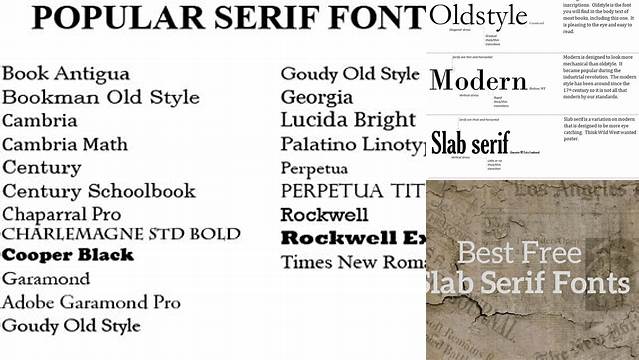
Serif Font Examples In Word: A Visual Guide
Hey guys! Ever wondered about those elegant, classic-looking fonts you see in books and professional documents? Those are likely serif fonts! And if you're using Microsoft Word, you've got a whole treasure trove of them at your fingertips. This guide is your one-stop-shop for understanding and using serif fonts effectively in Word. We're going to dive deep into examples of serif fonts in Microsoft Word, exploring their characteristics, best uses, and how to make the most of them in your projects. So, let's get started!
What are Serif Fonts?
Before we jump into specific examples, let's quickly define what a serif font actually is. Serif fonts are characterized by the small strokes or “feet” (the serifs!) that extend from the ends of the larger strokes in each letter. These little details give serif fonts a formal, traditional, and often more readable appearance, especially in large blocks of text. Think of them as the distinguished elder statesmen of the font world.
Understanding the Anatomy of Serif Fonts
To truly appreciate examples of serif fonts in Microsoft Word, it's crucial to understand their anatomy. The serifs themselves are the defining feature, but there's more to it than just those little feet. Consider the stroke contrast, which refers to the difference in thickness between the thin and thick parts of the letters. High contrast (like in Bodoni) creates a dramatic, elegant look, while low contrast (like in Century Schoolbook) is generally more readable for long passages. The x-height, the height of the lowercase letter 'x', also plays a role. A larger x-height can improve readability, especially at smaller sizes. By understanding these elements, you can better choose the best examples of serif fonts in Microsoft Word for your needs.
Why Use Serif Fonts?
So, why choose a serif font over a sans-serif (those fonts without the little feet)? Serif fonts are often perceived as more authoritative, formal, and traditional. They're ideal for professional documents, academic papers, books, and anything that needs a touch of elegance. The serifs themselves can also help guide the reader's eye along the lines of text, which can improve readability, especially in print. However, in some digital formats, extremely fine serifs might appear blurry, so consider your medium when choosing examples of serif fonts in Microsoft Word.
Classic Serif Font Examples in Microsoft Word
Now, let's get into the meat of the matter: the actual font examples! Microsoft Word comes pre-loaded with a fantastic selection of serif fonts, each with its own unique personality and best-use cases. We'll explore some of the classics and some lesser-known gems.
Times New Roman: The Undisputed King
Ah, Times New Roman. The font that needs no introduction. It's the default font in Word for a reason: it's incredibly versatile and readable. While some might consider it a bit overused, it's still a solid choice for professional documents, reports, and academic papers. Times New Roman boasts a balanced design and is highly legible, making it a reliable example of serif fonts in Microsoft Word. It works well in both print and digital formats, though its ubiquity can sometimes make it feel a little… bland.
To really make it shine, consider adjusting the spacing or using it in combination with a well-chosen sans-serif font for headings. Don't be afraid to experiment with different sizes and weights (bold, italic) to give it a bit more personality. While Times New Roman might be the safe choice, that doesn't mean it can't be a good choice, especially when used thoughtfully. The key is understanding its strengths and weaknesses and using it appropriately. When thinking about examples of serif fonts in Microsoft Word, Times New Roman always makes the list, and for good reason.
Garamond: Elegance and Readability Combined
Garamond is another classic serif font that exudes elegance and sophistication. It has a more refined and graceful appearance than Times New Roman, making it a great choice for books, brochures, and other documents where aesthetics are important. Its delicate serifs and slightly condensed letterforms give it a distinct personality. Garamond is known for its readability, even at smaller sizes, making it an excellent example of serif fonts in Microsoft Word for body text. Think of it as the stylish cousin of Times New Roman, offering a similar level of readability with a dash of extra flair.
Georgia: Designed for the Screen
Georgia is a serif font specifically designed for on-screen readability. It has a larger x-height and thicker strokes than many other serif fonts, making it clear and legible even at smaller sizes and on lower-resolution screens. This makes it an ideal example of serif fonts in Microsoft Word for online articles, blog posts, and other digital content. While it works well in print too, Georgia truly shines in the digital realm. It's a friendly and approachable font, perfect for situations where clarity and readability are paramount.
Baskerville: A Font with History
Baskerville is a transitional serif font, meaning it falls between the “old-style” serifs (like Garamond) and the “modern” serifs (like Bodoni). It’s known for its sharp serifs and elegant letterforms. Baskerville has a rich history, dating back to the 18th century, and its timeless design makes it a fantastic example of serif fonts in Microsoft Word for books, magazines, and other publications where a touch of classic elegance is desired. It conveys a sense of authority and sophistication, making it a strong choice for professional documents as well.
Palatino: Warmth and Distinction
Palatino is a humanist serif font, characterized by its calligraphic feel and warm, inviting appearance. It has a strong, distinct personality and is highly readable, even at small sizes. Palatino is a great example of serif fonts in Microsoft Word for invitations, announcements, and other documents where you want to convey a sense of warmth and sophistication. Its open letterforms and generous spacing contribute to its readability, making it a versatile choice for both body text and headlines.
Modern Serif Font Examples in Microsoft Word
While classic serifs have their place, there's also a world of modern serif fonts that offer a contemporary twist on the traditional style. These fonts often feature cleaner lines, bolder strokes, and a more minimalist aesthetic.
Didot: High Contrast Elegance
Didot is a modern serif font characterized by its high contrast between thick and thin strokes. This gives it a dramatic and elegant appearance, making it a popular choice for fashion magazines, high-end branding, and other applications where a touch of luxury is desired. While Didot is visually striking, its high contrast can sometimes make it less readable for long passages of text, especially at smaller sizes. It's a fantastic example of serif fonts in Microsoft Word for headlines and short blocks of text, but might not be the best choice for body copy.
Bodoni: Bold and Beautiful
Bodoni is another modern serif font with high contrast and a bold, dramatic look. It's similar to Didot but generally has thicker strokes, making it even more impactful. Bodoni is a great example of serif fonts in Microsoft Word for headlines, posters, and other display applications where you want to make a statement. Like Didot, it's not always the most readable font for long blocks of text, but its visual impact is undeniable.
Lesser-Known Serif Font Gems in Microsoft Word
Beyond the usual suspects, Microsoft Word has some hidden gems in its font library. These lesser-known serif fonts can add a unique touch to your documents and help you stand out from the crowd.
Book Antiqua: A Softer Alternative to Times New Roman
Book Antiqua is a serif font that resembles Palatino but has a slightly softer, more rounded appearance. It's a good alternative to Times New Roman if you want a font that's still professional and readable but with a bit more personality. This example of serif fonts in Microsoft Word provides a classic, yet subtly distinct feel, perfect for body text in books or reports.
Century Schoolbook: Excellent Readability
Century Schoolbook is a serif font specifically designed for readability, particularly in textbooks and other educational materials. It has a large x-height and clear, open letterforms, making it easy on the eyes. This example of serif fonts in Microsoft Word is known for its legibility even at smaller sizes, making it ideal for documents with extensive text.
How to Choose the Right Serif Font in Microsoft Word
With so many examples of serif fonts in Microsoft Word to choose from, how do you pick the right one for your project? Here are a few factors to consider:
Purpose of the Document
What is the purpose of your document? A formal report will likely require a different font than a creative brochure. Consider the tone and message you want to convey. If it's a formal document, fonts like Times New Roman or Baskerville can be great examples of serif fonts in Microsoft Word. If it's something that needs to feel more inviting and warm, try Palatino or Book Antiqua.
Target Audience
Who is your target audience? If you're writing for a general audience, readability is key. For a more niche audience, you might have more leeway to experiment with more stylized fonts. Think about your readers and what fonts they will find easiest to read and most appropriate for the content.
Readability
Readability is crucial, especially for long blocks of text. Choose fonts with clear, open letterforms and adequate spacing. Avoid fonts with overly thin strokes or overly decorative serifs, as these can be difficult to read. Some examples of serif fonts in Microsoft Word known for their readability are Georgia and Century Schoolbook.
Font Pairing
Consider how your serif font will pair with other fonts, especially sans-serif fonts for headings. A well-chosen font pairing can create a visually appealing and harmonious design. Generally, it's good to pair a serif font with a sans-serif font that has a similar weight or style. For example, you might pair Garamond with Helvetica or Arial.
Serif Fonts for Headings vs. Body Text
Generally, serif fonts are excellent choices for body text due to their enhanced readability, but they can also be used effectively for headings. However, it's important to choose a font that's appropriate for the context. For headings, you might opt for a bolder or more distinctive serif font to create visual interest. For body text, prioritize readability and choose a font that's easy on the eyes. Balancing the use of examples of serif fonts in Microsoft Word for headings and body text is key to effective document design.
Using Serif Fonts for Headings
When using serif fonts for headings, consider choosing a font with a strong personality. This can help create visual hierarchy and make your headings stand out. Modern serifs like Didot or Bodoni can be excellent choices for headings, as their high contrast and bold strokes make them eye-catching. However, be mindful of readability and ensure the font is legible even at a larger size. Balancing elegance with clarity is key when selecting examples of serif fonts in Microsoft Word for headings.
Using Serif Fonts for Body Text
For body text, readability is paramount. Choose a serif font that's clear, open, and easy on the eyes. Classic serifs like Garamond, Georgia, and Century Schoolbook are excellent choices for body text. Avoid fonts with overly thin strokes or overly decorative serifs, as these can fatigue the reader's eyes. The goal is to create a comfortable reading experience, making well-designed examples of serif fonts in Microsoft Word essential.
Formatting Serif Fonts in Microsoft Word
Once you've chosen your serif font, it's important to format it correctly to ensure optimal readability and visual appeal. Microsoft Word offers a variety of formatting options that can help you fine-tune the appearance of your text. This includes font size, line spacing, kerning, and tracking.
Adjusting Font Size
The appropriate font size will depend on the font you've chosen, the purpose of your document, and your target audience. Generally, a font size of 10-12 points is suitable for body text, while headings can be larger. Experiment with different sizes to see what looks best. When selecting examples of serif fonts in Microsoft Word, remember that readability can vary based on size, so testing is crucial.
Line Spacing (Leading)
Line spacing, also known as leading, refers to the vertical space between lines of text. Adequate line spacing is crucial for readability. A general rule of thumb is to use a line spacing of 1.2 to 1.5 times the font size. You can adjust line spacing in Microsoft Word by going to the “Paragraph” settings. Optimizing line spacing enhances the visual appeal and readability of examples of serif fonts in Microsoft Word.
Kerning and Tracking
Kerning refers to the spacing between individual letters, while tracking refers to the overall spacing between all letters in a block of text. Adjusting kerning and tracking can improve the visual appeal and readability of your text. Microsoft Word offers kerning options in the “Font” settings. Fine-tuning these settings can significantly improve how examples of serif fonts in Microsoft Word appear in your document.
Using Bold and Italic Styles
Using bold and italic styles can help emphasize important words or phrases and create visual interest. However, use these styles sparingly, as overuse can make your text look cluttered. Bold is great for highlighting key terms, while italics can be used for quotes or emphasis. Proper use of these styles complements the natural elegance of examples of serif fonts in Microsoft Word.
Pairing Serif Fonts with Sans-Serif Fonts
As mentioned earlier, pairing serif fonts with sans-serif fonts can create a visually appealing and balanced design. The key is to choose fonts that complement each other without clashing. A common approach is to use a serif font for body text and a sans-serif font for headings, or vice versa. Exploring different pairings among examples of serif fonts in Microsoft Word and their sans-serif counterparts can lead to striking visual results.
Best Practices for Font Pairing
When pairing fonts, look for fonts that have similar weights or styles. For example, a classic serif font like Garamond pairs well with a classic sans-serif font like Helvetica. A modern serif font like Bodoni might pair well with a geometric sans-serif font like Futura. The goal is to create a harmonious and cohesive design. Successful font pairing showcases the versatility of examples of serif fonts in Microsoft Word.
Examples of Successful Font Pairings
Some classic font pairings include: Times New Roman and Arial, Garamond and Helvetica, Georgia and Verdana, and Baskerville and Gill Sans. Experiment with different pairings to see what works best for your project. Don't be afraid to break the rules, but always prioritize readability and visual appeal. Understanding these pairings allows you to maximize the impact of examples of serif fonts in Microsoft Word.
Common Mistakes to Avoid When Using Serif Fonts
While serif fonts are versatile and elegant, there are some common mistakes to avoid. These include using too many different fonts, overusing bold and italic styles, and choosing fonts that are difficult to read.
Overusing Fonts
Using too many different fonts in a single document can create a cluttered and unprofessional look. Stick to a maximum of two or three fonts and use them consistently throughout your document. Simplicity and consistency are key when working with examples of serif fonts in Microsoft Word.
Overusing Bold and Italic
As mentioned earlier, overusing bold and italic styles can make your text look cluttered and distracting. Use these styles sparingly and only to emphasize important words or phrases. Subtlety in formatting enhances the overall effectiveness of examples of serif fonts in Microsoft Word.
Choosing Illegible Fonts
Some serif fonts, particularly those with overly thin strokes or decorative serifs, can be difficult to read, especially at smaller sizes. Always prioritize readability and choose fonts that are clear and legible. Selecting appropriate examples of serif fonts in Microsoft Word ensures your message is communicated clearly.
Where to Find More Serif Fonts for Microsoft Word
While Microsoft Word comes with a solid selection of serif fonts, you can always expand your font library by downloading fonts from the internet. There are many websites that offer free and paid fonts. Sites like Google Fonts, Adobe Fonts, and MyFonts are excellent resources. Exploring these platforms expands your options beyond the basic examples of serif fonts in Microsoft Word.
Installing Fonts in Microsoft Word
Installing fonts in Microsoft Word is usually a straightforward process. Simply download the font file (usually in .ttf or .otf format) and double-click it. This will open a font preview window. Click the “Install” button, and the font will be installed on your system and available in Microsoft Word. This allows you to incorporate even more diverse examples of serif fonts in Microsoft Word.
The Future of Serif Fonts in Digital Design
Serif fonts have a long and rich history, and they continue to be relevant in digital design. While sans-serif fonts have gained popularity in web design, serif fonts still hold a place of importance, particularly for content-heavy websites and publications. The timeless appeal of examples of serif fonts in Microsoft Word extends to the broader digital landscape.
Serif Fonts and Accessibility
When choosing fonts for digital content, it's important to consider accessibility. Some serif fonts are more accessible than others, particularly those with a large x-height and clear letterforms. Georgia, for example, is a highly accessible serif font that works well on screen. Choosing accessible examples of serif fonts in Microsoft Word ensures your content is inclusive.
Serif Fonts in Branding
Serif fonts can play a key role in branding, conveying a sense of tradition, authority, and elegance. Many established brands use serif fonts in their logos and marketing materials. Considering examples of serif fonts in Microsoft Word in a branding context highlights their enduring professional appeal.
Conclusion: Mastering Serif Fonts in Microsoft Word
So there you have it, a comprehensive guide to examples of serif fonts in Microsoft Word. From classic choices like Times New Roman and Garamond to modern options like Didot and Bodoni, there's a serif font for every project. By understanding the characteristics of serif fonts and how to use them effectively, you can create documents that are both visually appealing and highly readable. Experiment, explore, and have fun with these timeless typefaces!
H2: Understanding Serif Font Classifications
Serif fonts aren't a monolithic group; they're actually categorized into different classifications based on their historical origins and visual characteristics. Knowing these classifications helps you better appreciate the nuances between various examples of serif fonts in Microsoft Word and choose the most appropriate one for your needs. We'll explore the main classifications: Old Style, Transitional, Modern, and Slab Serif, each bringing a unique flavor to the font family.
H3: Old Style Serif Fonts (e.g., Garamond)
Old Style serif fonts are the earliest form of serif typefaces, dating back to the 15th century. They are characterized by their low contrast between thick and thin strokes, bracketed serifs (where the serifs curve smoothly into the stroke), and a diagonal stress (the thickest part of the curved strokes is at an angle). Garamond, as we mentioned before, is a quintessential example of an Old Style serif, renowned for its elegance and readability. These examples of serif fonts in Microsoft Word offer a classic and timeless feel, making them perfect for books and long-form content where readability is paramount. The subtle, handcrafted quality of Old Style fonts imparts a sense of sophistication and tradition, making them a popular choice for projects seeking a touch of historical charm. When using Old Style serifs, consider the spacing and leading carefully to enhance their natural readability and elegance, allowing their subtle features to shine.
H3: Transitional Serif Fonts (e.g., Baskerville)
Transitional serif fonts emerged in the 18th century, bridging the gap between Old Style and Modern serifs. They exhibit higher contrast than Old Style fonts but are less dramatic than Modern serifs. Their serifs are sharper and more refined, and the stress is more vertical. Baskerville is a prime example, boasting sharp serifs and elegant letterforms. These examples of serif fonts in Microsoft Word are known for their refined appearance and improved readability compared to earlier styles. Transitional fonts offer a balance between tradition and modernity, making them suitable for a wide range of applications, from books and magazines to corporate communications. They provide a clear and sophisticated look that is both inviting and professional. Their sharper details and cleaner lines make them particularly effective in print, where their elegance can be fully appreciated. When choosing transitional serifs, consider how they contribute to the overall tone of your document, as they can convey a sense of sophistication and authority.
H3: Modern Serif Fonts (e.g., Didot, Bodoni)
Modern serif fonts, also known as Didone, appeared in the late 18th and early 19th centuries. They are characterized by their extreme contrast between thick and thin strokes, thin, unbracketed serifs (serifs that connect abruptly to the main stroke), and a vertical stress. Didot and Bodoni are iconic examples, known for their striking elegance and dramatic flair. These examples of serif fonts in Microsoft Word are often used in high-fashion magazines, luxury branding, and other contexts where a touch of glamour is desired. However, their high contrast can sometimes make them less readable for long blocks of text, especially at smaller sizes. Modern serifs are best used for headlines, logos, and other applications where visual impact is more important than extensive readability. Their sharp, clean lines and dramatic contrast make a bold statement, but careful consideration of their context and usage is essential to maximize their effectiveness without sacrificing legibility.
H3: Slab Serif Fonts (e.g., Rockwell)
Slab serif fonts, also known as Egyptian serifs, are characterized by their thick, block-like serifs. They have a bold, sturdy appearance and often exhibit low contrast between thick and thin strokes. While not as common in general text, they are excellent for headlines, posters, and branding where a strong, impactful visual presence is needed. Rockwell is a notable example of serif fonts in Microsoft Word, demonstrating the distinct character of slab serifs. These fonts originated in the 19th century and were widely used in advertising and signage. They evoke a sense of robustness and reliability, making them suitable for projects aiming to convey strength and stability. Slab serifs can add a vintage or industrial feel to designs, and their distinctive serifs make them highly memorable. When using slab serifs, consider their weight and boldness to ensure they don't overpower the other elements of your design, and balance their strong presence with appropriate spacing and layout.
H2: Exploring the Readability of Serif Fonts
Readability is paramount in typography, and serif fonts have long been lauded for their ability to enhance the reading experience. The serifs themselves play a crucial role in guiding the eye along the baseline, reducing eye fatigue and improving comprehension, especially in long passages of text. However, not all serif fonts are created equal when it comes to readability. Factors such as x-height, stroke contrast, and letter spacing all contribute to how easily a font can be read. In this section, we'll delve deeper into the elements that influence readability and explore which examples of serif fonts in Microsoft Word excel in this area.
H3: The Role of Serifs in Reading Flow
The serifs, those small strokes at the ends of the letterforms, are more than just decorative elements. They act as visual cues that help the eye track smoothly across a line of text. This visual connection can improve reading speed and comprehension, especially in printed materials. Think of the serifs as tiny anchors that provide a sense of stability and direction. This guiding function is one of the primary reasons why serif fonts are often preferred for books, newspapers, and other long-form content. When considering examples of serif fonts in Microsoft Word for extended reading, it's essential to evaluate how effectively the serifs facilitate eye movement and maintain reader engagement. The subtle yet significant impact of serifs on reading flow underscores their importance in typography and document design.
H3: Impact of X-Height on Legibility
The x-height, the distance between the baseline and the mean line of lowercase letters, significantly impacts legibility. Fonts with a larger x-height tend to be more readable, especially at smaller sizes, as the lowercase letters appear more prominent and distinct. This is particularly important in digital environments where screen resolutions can affect how fonts are rendered. Examples of serif fonts in Microsoft Word like Georgia are designed with a larger x-height specifically for on-screen readability. A generous x-height contributes to the overall clarity and ease of reading, making it a critical consideration for body text and content-heavy documents. When selecting fonts, evaluating the x-height in relation to the cap height and ascenders/descenders can help ensure optimal legibility and a comfortable reading experience.
H3: Contrast and its Influence on Eye Strain
The contrast between the thick and thin strokes of a serif font can either enhance or detract from its readability. High-contrast fonts, like Didot and Bodoni, can be visually striking but may cause eye strain when used for large blocks of text. Low-contrast fonts, on the other hand, offer a more consistent visual texture that is easier on the eyes. When choosing examples of serif fonts in Microsoft Word for body text, it's often best to opt for fonts with moderate to low contrast. This helps ensure that the text remains comfortable to read even over extended periods. The balance between visual appeal and readability is key, and considering contrast is a vital step in selecting a font that serves both purposes effectively.
H3: Letter Spacing and its Effect on Reading Speed
Letter spacing, also known as tracking, plays a crucial role in reading speed and comprehension. Too little letter spacing can make the text appear cramped and difficult to decipher, while too much spacing can disrupt the flow of reading. The optimal letter spacing depends on the font's design, size, and the context in which it is used. Examples of serif fonts in Microsoft Word can be fine-tuned using the kerning and tracking tools in Microsoft Word to achieve the best balance. Thoughtful adjustment of letter spacing can significantly improve readability and overall visual appeal, ensuring that the text is both engaging and easy to follow. Paying attention to these details helps create a comfortable and efficient reading experience.
H2: Serif Fonts for Different Types of Documents
Different documents have different purposes and therefore require different typographic considerations. A formal academic paper will call for a different serif font than a casual invitation, and a marketing brochure will demand a different approach than a lengthy novel. Understanding how to select the right serif font for various types of documents is crucial for effective communication and visual impact. We'll explore several common document types and recommend suitable examples of serif fonts in Microsoft Word for each, focusing on their specific needs and intended audiences.
H3: Serif Fonts for Academic Papers and Reports
Academic papers and reports require a font that conveys authority, professionalism, and, above all, readability. The goal is to present information clearly and concisely, without distracting the reader with overly stylized fonts. Classic serif fonts like Times New Roman, Garamond, and Baskerville are excellent choices for these documents. These examples of serif fonts in Microsoft Word have a proven track record of readability in print and digital formats, making them ideal for lengthy texts. Times New Roman, while sometimes criticized for being overused, remains a solid choice for its neutrality and legibility. Garamond offers a slightly more elegant alternative, while Baskerville adds a touch of sophistication without sacrificing clarity. Consistency in font usage throughout the document is crucial, and these fonts provide a reliable foundation for academic writing.
H3: Serif Fonts for Business Correspondence and Resumes
Business correspondence and resumes demand a font that strikes a balance between professionalism and approachability. While readability is paramount, the font should also convey competence and attention to detail. Georgia and Book Antiqua are excellent options for these types of documents. Georgia, with its large x-height and clear letterforms, is particularly well-suited for on-screen reading, making it ideal for email correspondence and digital resumes. Book Antiqua provides a slightly softer alternative to Times New Roman, offering a touch of warmth without sacrificing professionalism. These examples of serif fonts in Microsoft Word ensure that your message is conveyed clearly and effectively, leaving a positive impression on the reader. The key is to choose a font that is both legible and reflects your personal brand.
H3: Serif Fonts for Books and Long-Form Content
For books and other long-form content, readability is the top priority. Readers will be spending hours engaging with the text, so it's crucial to choose a font that minimizes eye strain and facilitates a comfortable reading experience. Garamond, Palatino, and Century Schoolbook are all excellent choices for books. Garamond's elegant and readable letterforms have made it a favorite for book designers for centuries. Palatino offers a slightly warmer and more humanist feel, while Century Schoolbook is specifically designed for readability, particularly at smaller sizes. These examples of serif fonts in Microsoft Word are time-tested for their suitability in lengthy texts, ensuring that readers can immerse themselves in the content without distraction. When selecting a font for a book, consider the overall tone and genre, but always prioritize legibility and reading comfort.
H3: Serif Fonts for Invitations and Special Occasions
Invitations and other special occasion documents offer an opportunity to use more decorative and expressive serif fonts. While readability remains important, the focus shifts towards creating a visually appealing and memorable design. Baskerville, Palatino, and even modern serifs like Didot can be effective choices, depending on the desired tone. Baskerville can lend a touch of classic elegance, while Palatino offers a more humanist and inviting feel. Didot, with its high contrast and striking letterforms, can add a touch of glamour and sophistication. These examples of serif fonts in Microsoft Word allow for creative expression while maintaining a level of formality appropriate for special events. The key is to balance aesthetics with legibility, ensuring that the invitation is both beautiful and easy to read.
H2: Customizing Serif Fonts in Microsoft Word
Microsoft Word provides a range of tools for customizing fonts, allowing you to fine-tune their appearance and tailor them to your specific needs. Beyond simply selecting a font from the dropdown menu, you can adjust the size, weight, spacing, and other attributes to achieve the desired visual effect. These customization options are particularly useful for optimizing readability and creating a consistent typographic style throughout your document. By mastering these tools, you can make the most of examples of serif fonts in Microsoft Word and create professional-looking documents.
H3: Adjusting Font Size and Weight
Font size and weight are fundamental aspects of typography that can significantly impact readability and visual hierarchy. A larger font size is typically used for headings and titles, while a smaller size is used for body text. Font weight refers to the thickness of the strokes, with options ranging from light to bold. Using bold font weight can be effective for emphasizing key words or phrases, but it should be used sparingly to avoid overwhelming the reader. Adjusting the font size and weight is a basic yet powerful way to customize examples of serif fonts in Microsoft Word. The appropriate size and weight will depend on the font itself, the purpose of the document, and the intended audience. Experimentation is key to finding the optimal settings for your specific needs.
H3: Using Italics and Underlining Effectively
Italics and underlining are stylistic tools that can be used to add emphasis or distinguish certain words or phrases. Italics are commonly used for quotations, book titles, and foreign words, while underlining is often used to highlight important text. However, both of these tools should be used sparingly to avoid cluttering the page. Overuse of italics or underlining can actually detract from readability and make the document appear unprofessional. Subtlety is key when using these stylistic elements. As you explore examples of serif fonts in Microsoft Word, consider how italics and underlining will complement the font's natural characteristics. A well-placed italic or underline can enhance the visual impact of a serif font, but moderation is essential.
H3: Changing Letter and Line Spacing
Letter spacing (tracking) and line spacing (leading) are crucial for readability, particularly in longer documents. Adjusting these settings can significantly improve the overall visual appeal and reading experience. Increasing the letter spacing can make text appear more open and airy, while reducing it can create a more compact look. Similarly, increasing the line spacing provides more vertical space between lines, making the text easier to follow. Experiment with different letter and line spacing settings to find the optimal balance for your chosen font and document type. Some examples of serif fonts in Microsoft Word may benefit from slight adjustments to spacing to enhance their readability. These subtle tweaks can make a big difference in the final presentation of your document.
H3: Applying Styles and Themes for Consistency
Microsoft Word's styles and themes features are invaluable for maintaining consistency in formatting throughout a document. Styles allow you to define specific formatting attributes (font, size, spacing, etc.) for different elements (headings, body text, captions, etc.) and apply them consistently. Themes provide a set of coordinated styles and color palettes that give your document a cohesive look. Using styles and themes not only saves time but also ensures a professional and polished appearance. When working with examples of serif fonts in Microsoft Word, leveraging styles and themes can help you create visually harmonious and well-organized documents. This approach ensures that your chosen font is showcased effectively and that your message is communicated clearly and consistently.
H2: Serif Fonts and Accessibility Best Practices
Accessibility is a crucial consideration in document design, ensuring that your content is usable by everyone, including individuals with disabilities. When choosing serif fonts, it's essential to select fonts that are legible and easy to read for a wide range of users. Factors such as x-height, stroke contrast, and letter spacing play a significant role in accessibility. Additionally, providing alternative text for images and using proper heading structures can further enhance accessibility. Adhering to accessibility best practices not only makes your documents more inclusive but also improves their overall usability. In this section, we'll explore specific guidelines for using examples of serif fonts in Microsoft Word in an accessible manner.
H3: Selecting Fonts with High Readability for All Users
When selecting fonts for accessibility, prioritize those with a large x-height, moderate stroke contrast, and clear letterforms. These characteristics make the font easier to read for individuals with visual impairments or reading disabilities. Fonts like Georgia and Century Schoolbook are specifically designed for readability and are excellent choices for accessible documents. Avoid fonts with overly decorative serifs or extreme stroke contrast, as these can be challenging to decipher. Remember that the goal is to communicate your message clearly to the widest possible audience. By choosing examples of serif fonts in Microsoft Word with high readability, you ensure that your content is accessible to all users, regardless of their visual abilities.
H3: Using Sufficient Font Size and Contrast
Font size and contrast are critical factors in accessibility. Small font sizes can be difficult to read, especially for individuals with low vision. The Web Content Accessibility Guidelines (WCAG) recommend a minimum font size of 12 points for body text. Additionally, ensuring sufficient contrast between the text and background is essential. Low contrast can make text fade into the background, making it difficult to read. WCAG recommends a contrast ratio of at least 4.5:1 for normal text and 3:1 for large text. Using appropriate font sizes and contrast levels is a fundamental step in creating accessible documents. As you work with examples of serif fonts in Microsoft Word, be mindful of these guidelines and adjust your settings accordingly to ensure optimal readability for all users.
H3: Implementing Proper Heading Structures for Navigation
Proper heading structures are crucial for accessibility, particularly for individuals who use screen readers. Screen readers rely on heading tags (H1, H2, H3, etc.) to navigate through the document and understand its organization. Using headings in a logical and hierarchical order (e.g., H1 for the main title, H2 for major sections, H3 for subsections) makes it easier for screen reader users to understand the document's structure and jump to specific sections. Avoid using headings solely for visual formatting; instead, use the built-in heading styles in Microsoft Word. By implementing proper heading structures, you make your documents more navigable and accessible to screen reader users. This is an essential aspect of creating inclusive documents and should be a standard practice when working with examples of serif fonts in Microsoft Word.
H3: Providing Alternative Text for Images and Non-Text Elements